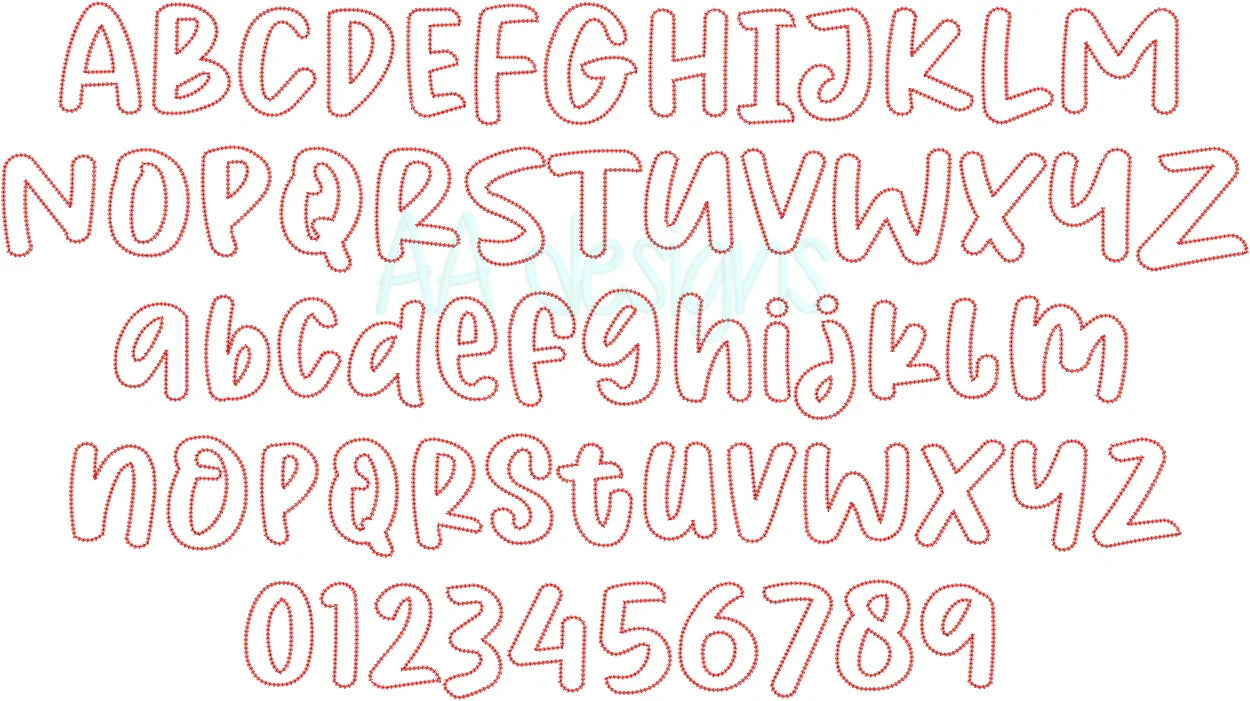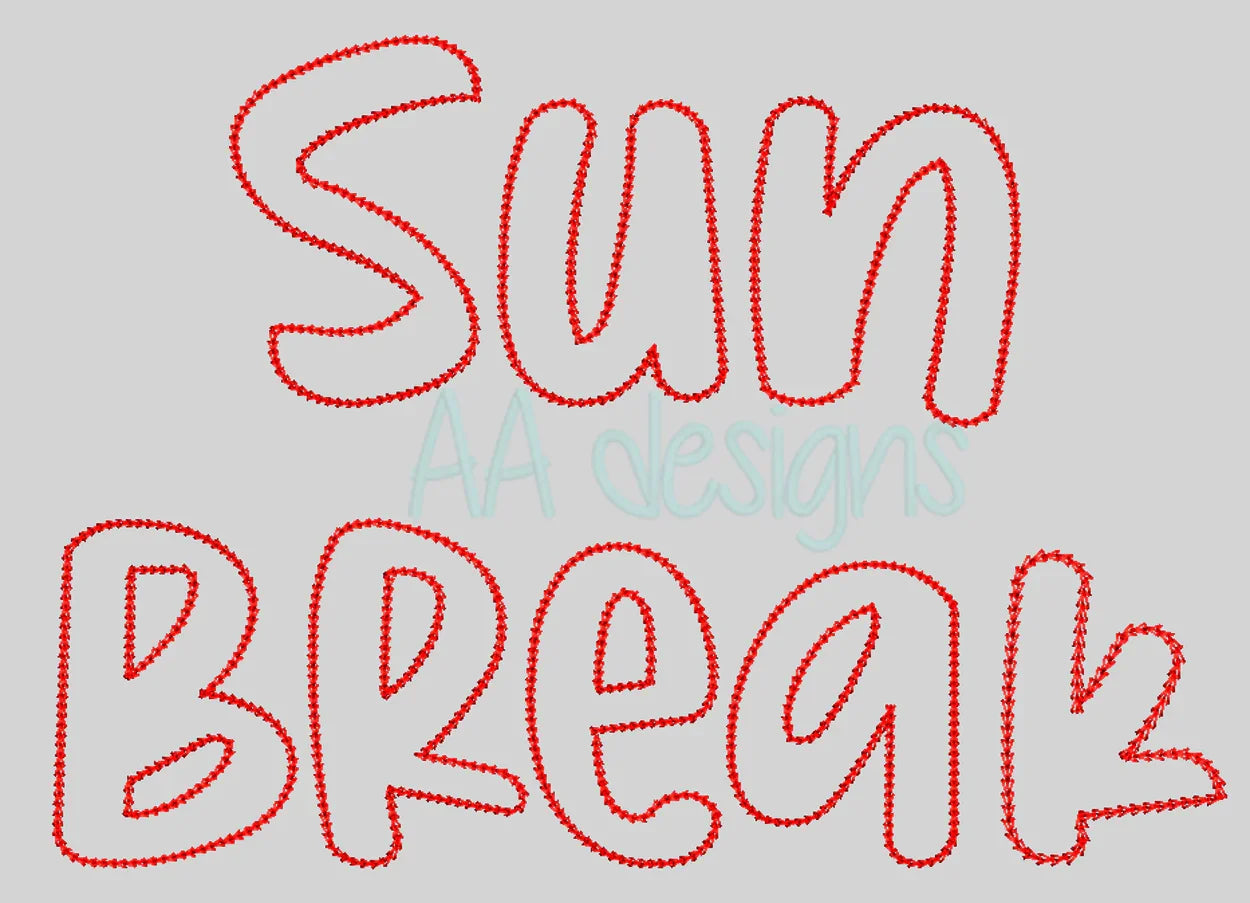
Sun Break Machine Embroidery Font — Instant Digital Download
Bring a fresh, bright style to your embroidery projects with the Sun Break Font. Ideal for monograms, tote bags, apparel, home décor, and personalized gifts.
- ✅ Full character set: uppercase, lowercase, numbers 0–9